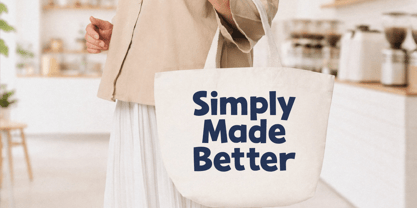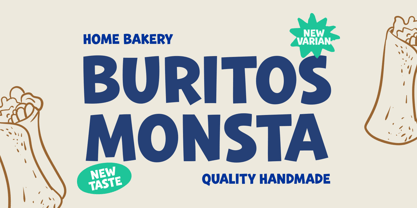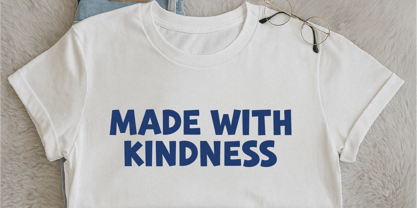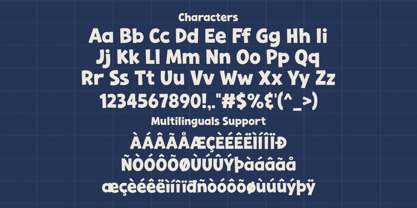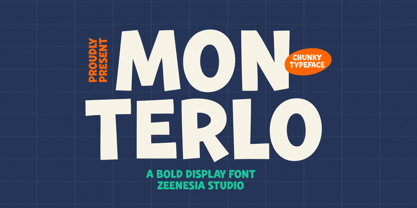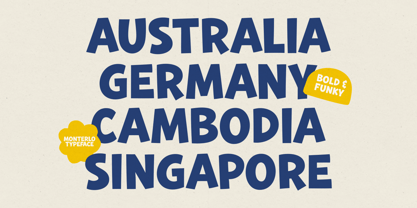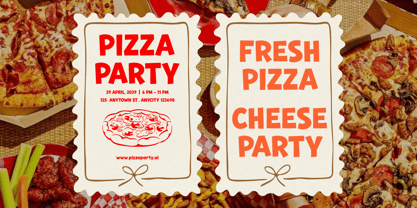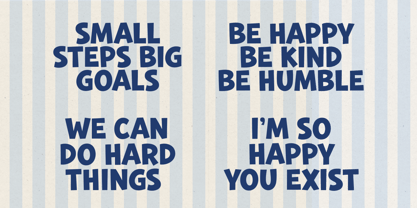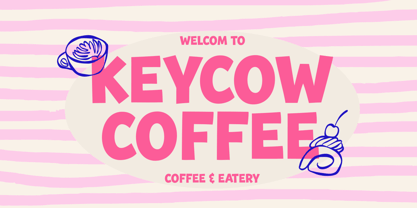
Monterlo
by Zeenesia Studio
The Monterlo Font Family was designed by Doni Purwoko and published by Zeenesia Studio. Monterlo contains 1 styles. More about this family
Monterlo is a bold display font built to command attention. With its solid structure, confident weight, and slightly dynamic angles, Monterlo delivers a powerful visual presence in any layout. Designed for impactful headlines, branding, posters, and modern visual identities, this typeface balances strength with character. Its chunky form makes it perfect for projects that demand clarity, confidence, and memorability.
Designers: Doni Purwoko
Foundry: Zeenesia Studio